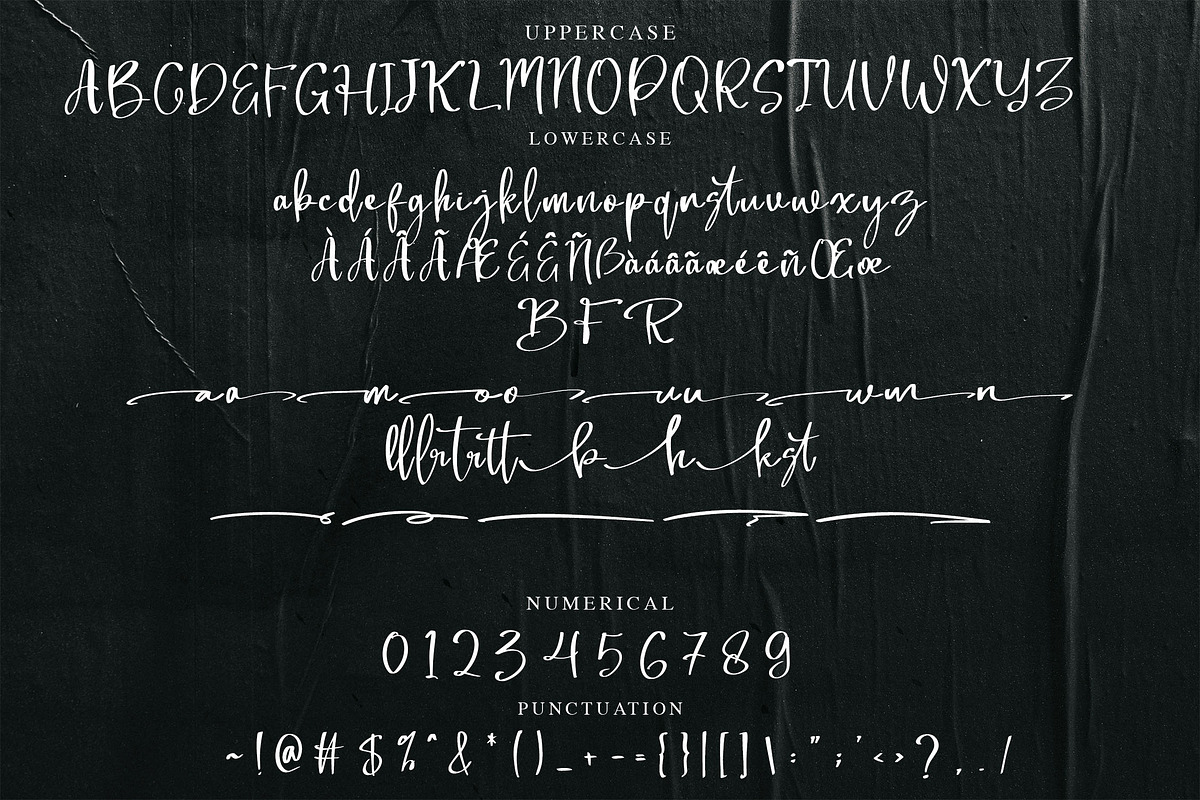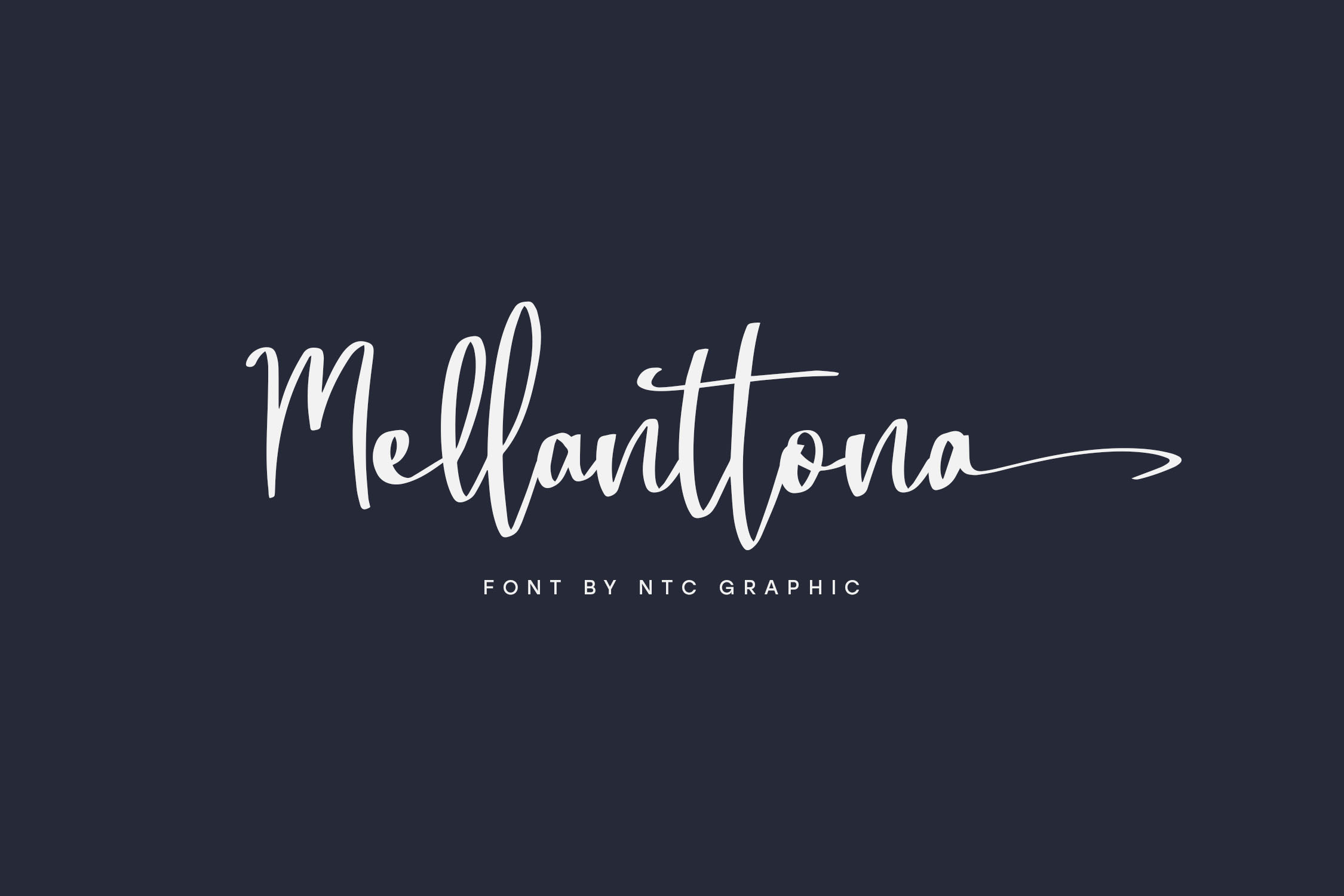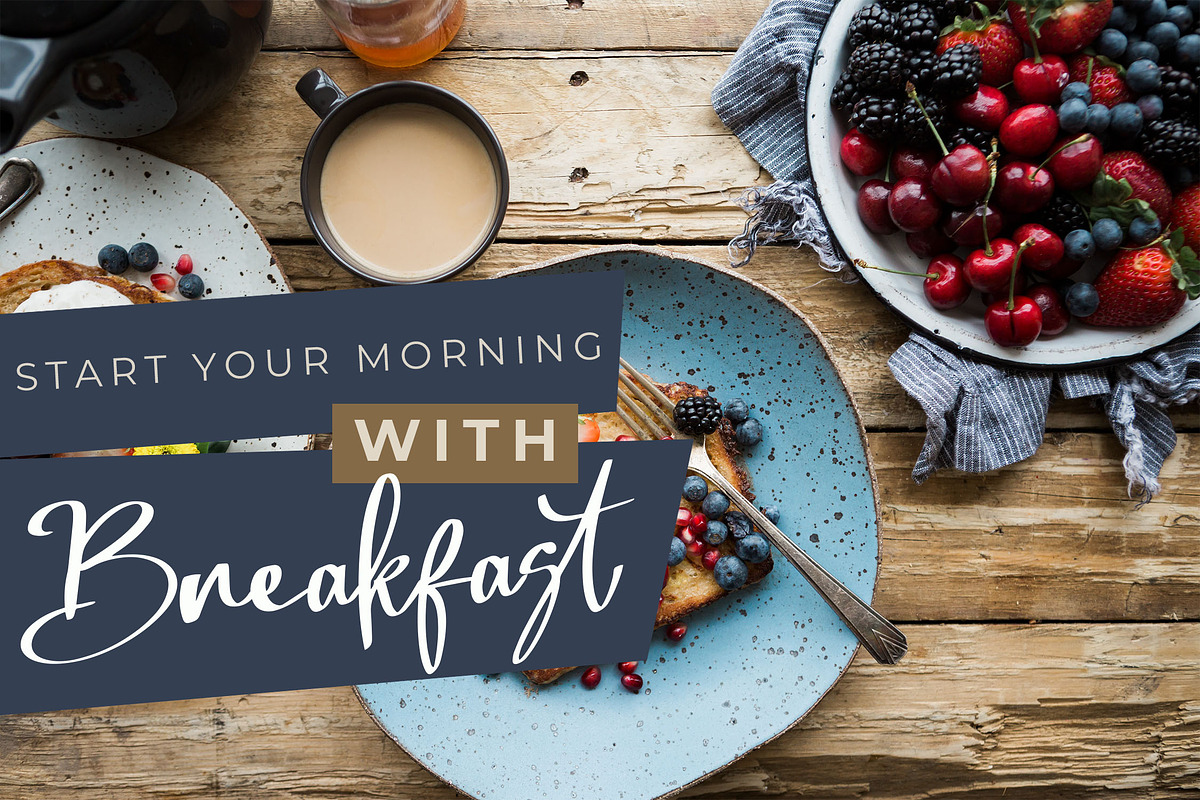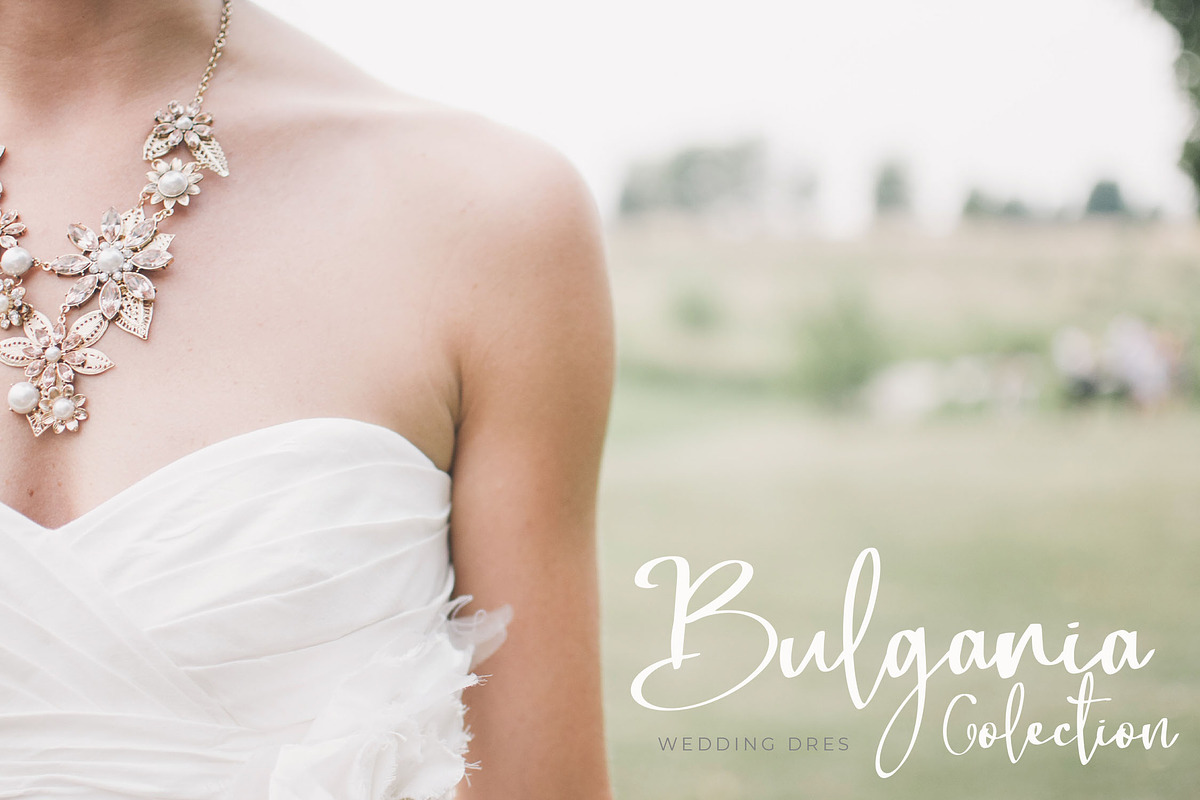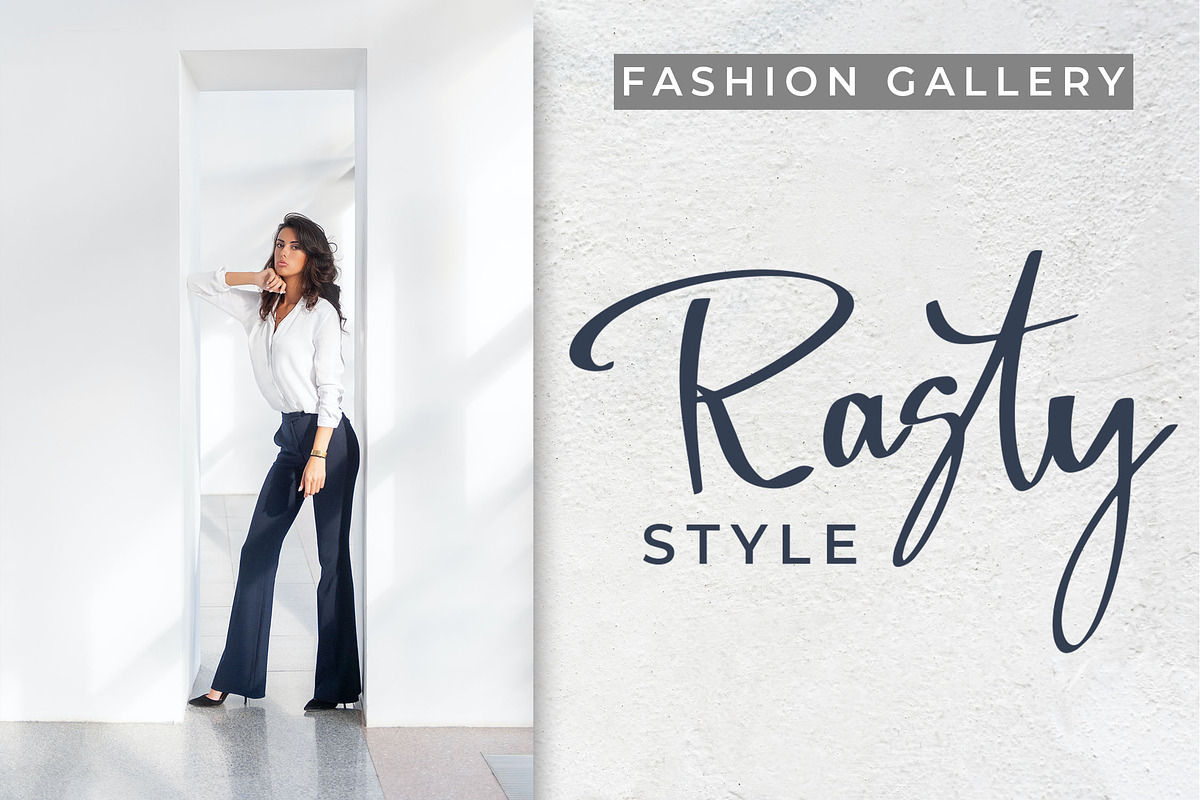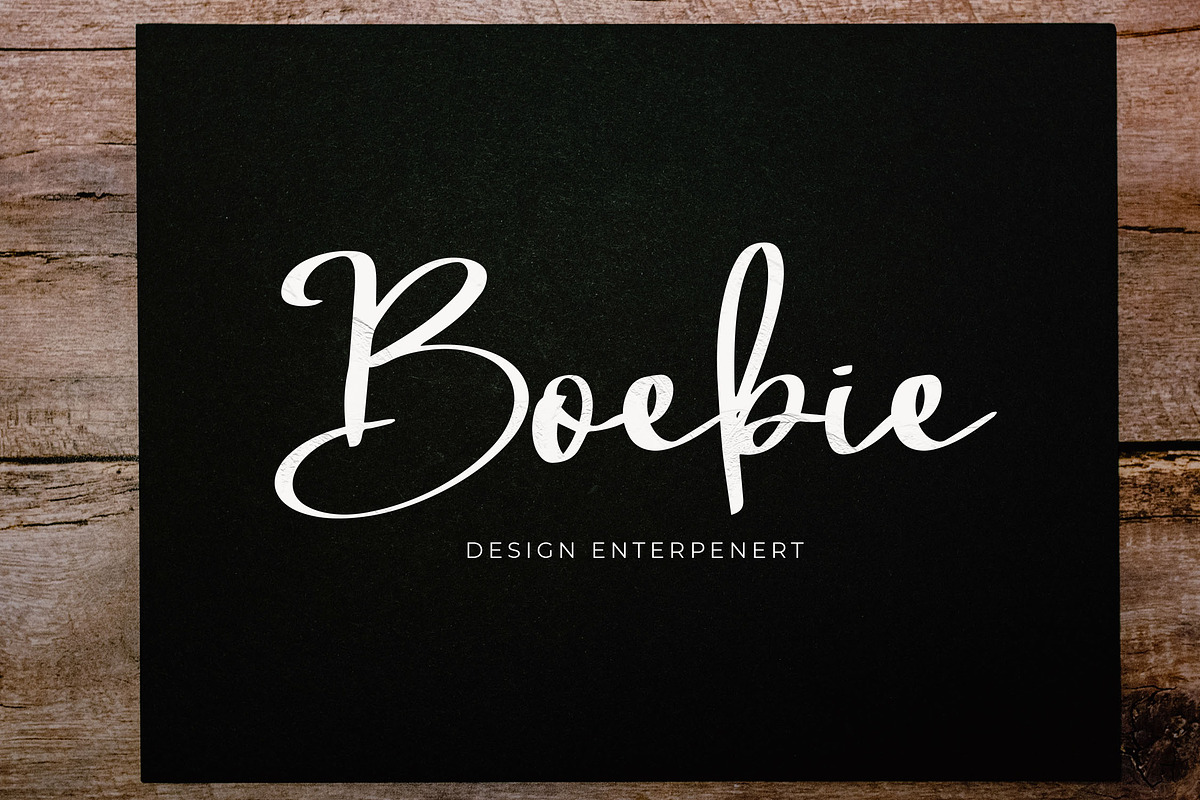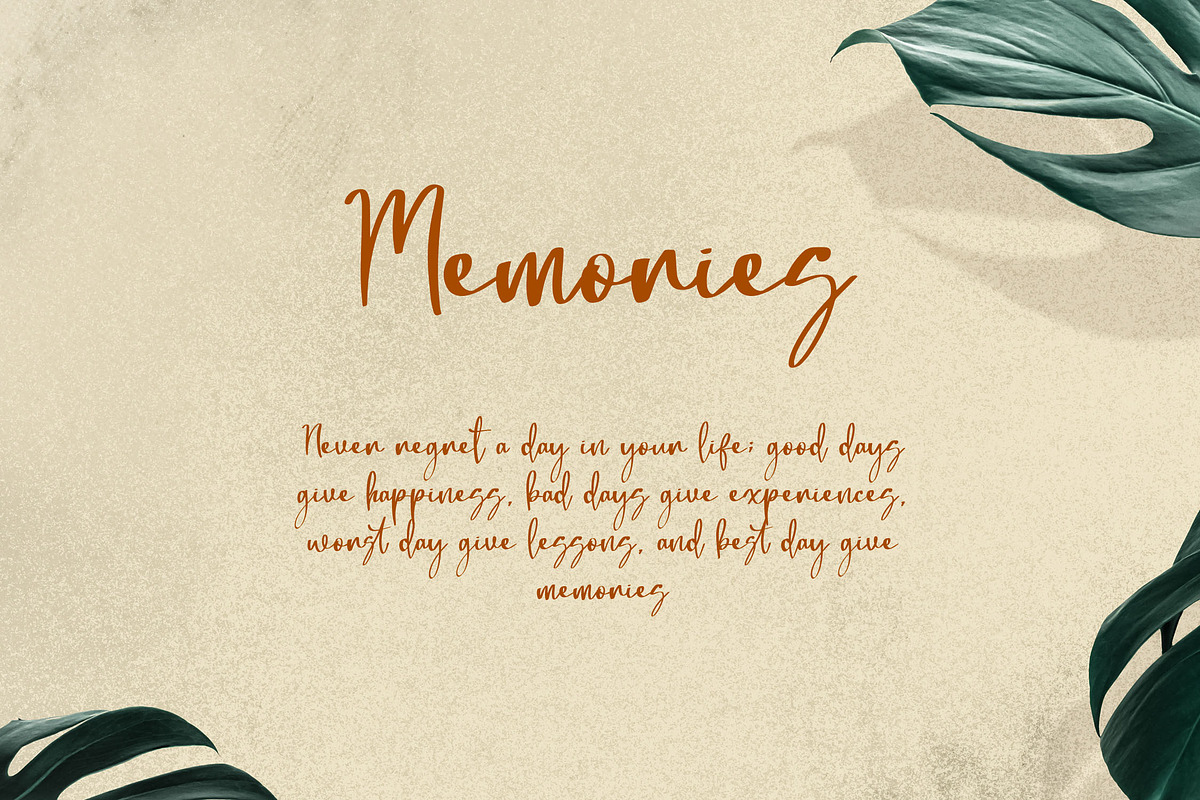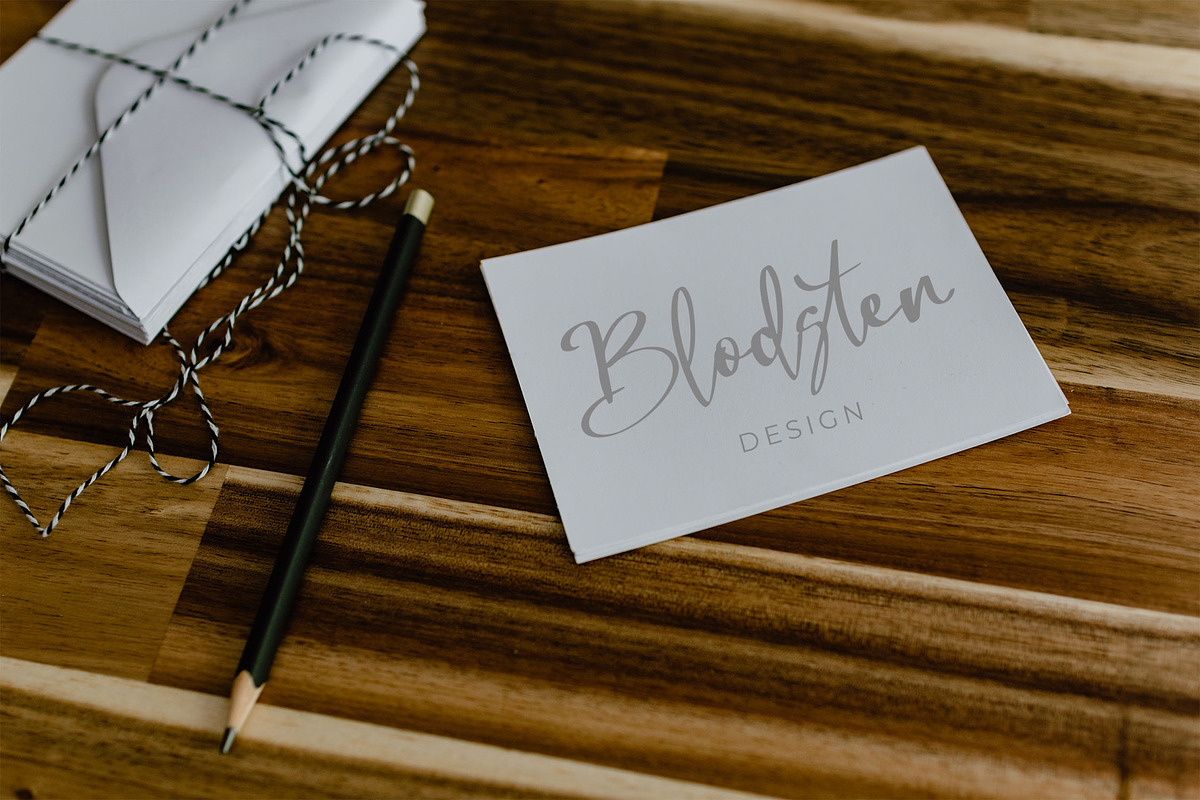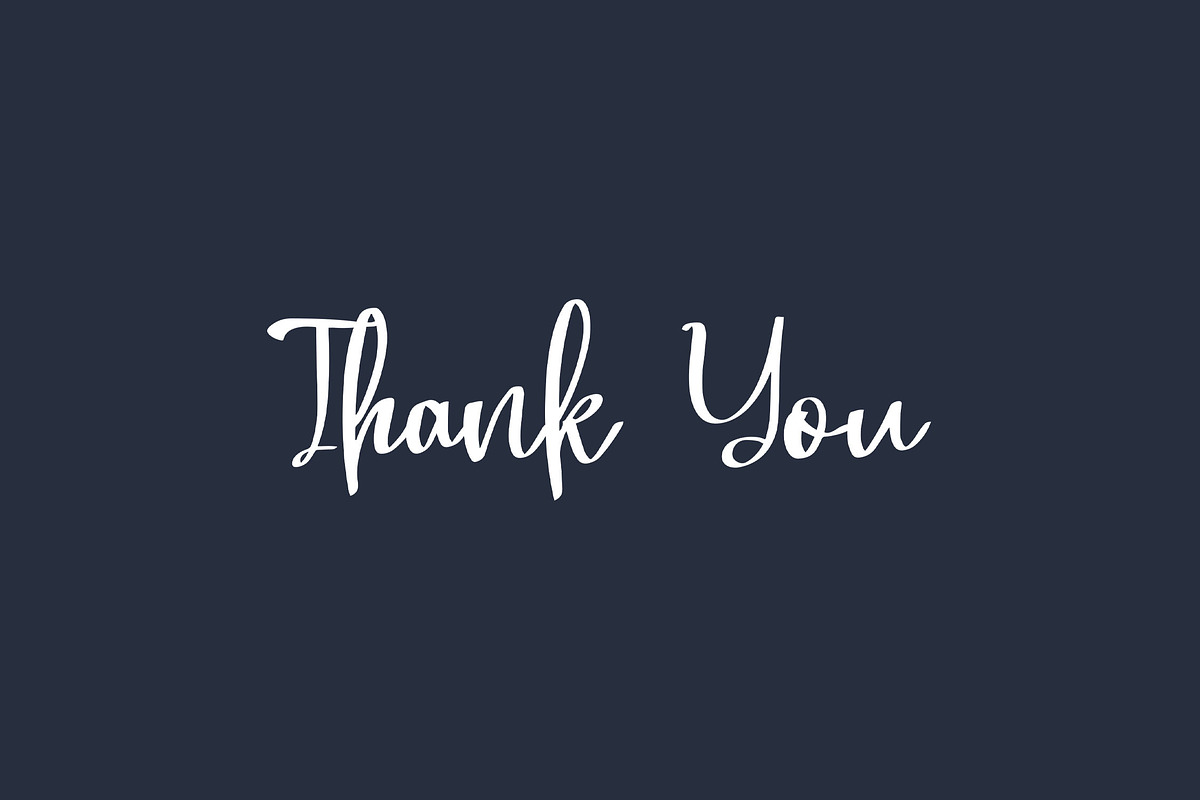
Mellanttona Calligraphy Script Font
Mellanttona is a script handwritten font with a calligraphy style. This font style made with unique shapes font characters are really good. Can be applied to support the graphic appearance of the product to be more attractive.
- Stylistic Alternate